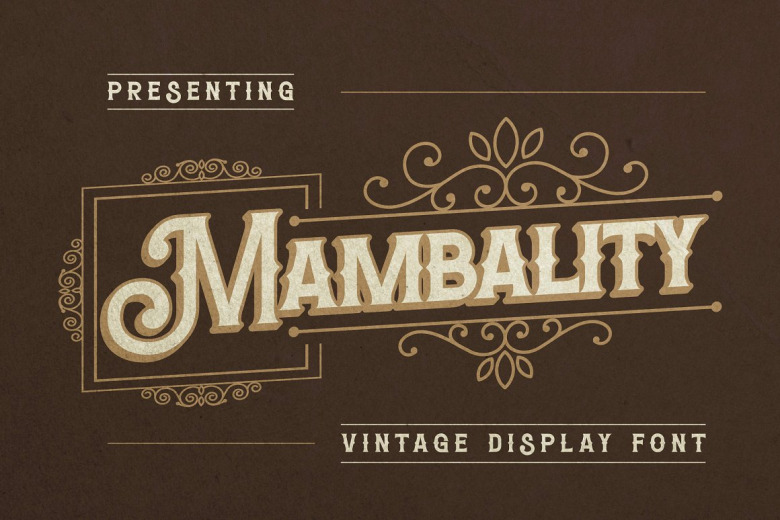
Mambality Font
Mambality is a thick typeface with vintage style and bold display font. PUA set encoded-Allows you to access all of the extra glyphs and swashes with ease! Then simply mix it generously into whatever you wish to recreate, and watch the magic happen.
Mambality Vintage Display Font